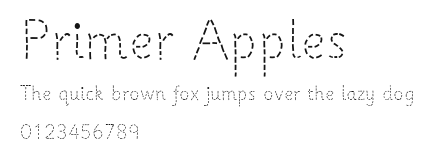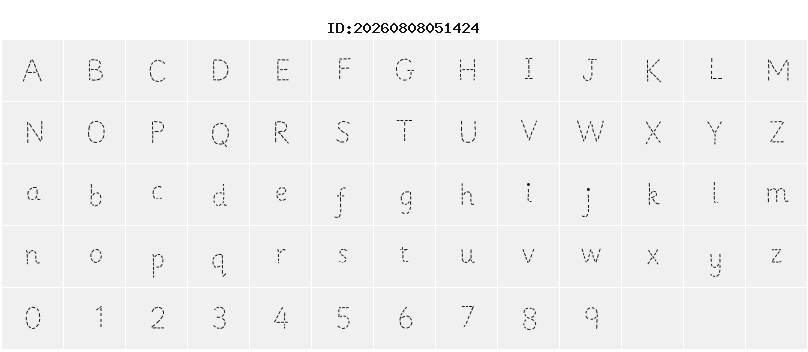
Primer Apples Preview
About Primer Apples.ttf
Primer Apples.ttf is a modern, elegant sans-serif font designed for ultimate readability and visual harmony. Perfect for branding, headlines, web design, and print materials.